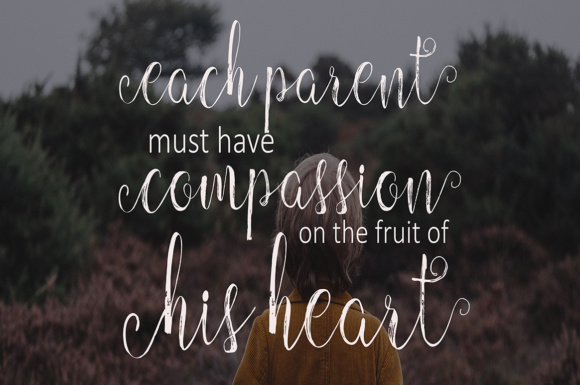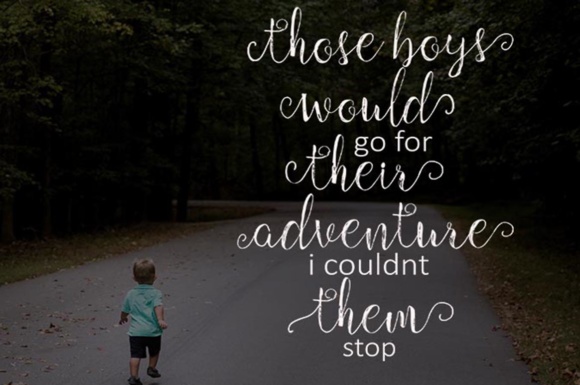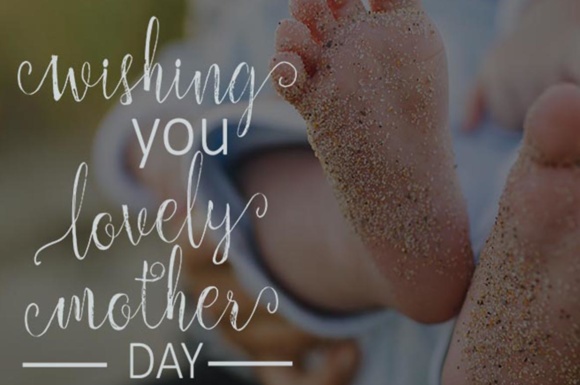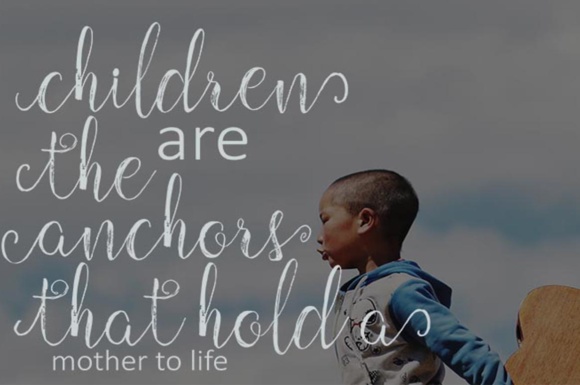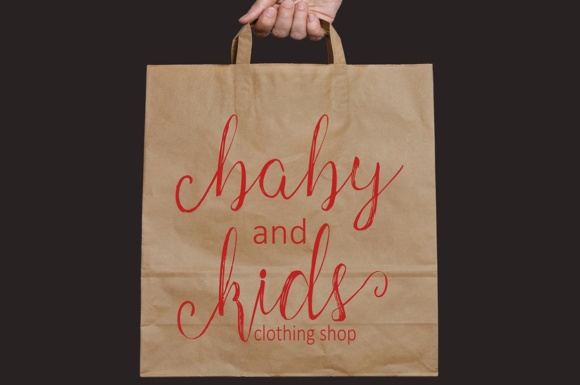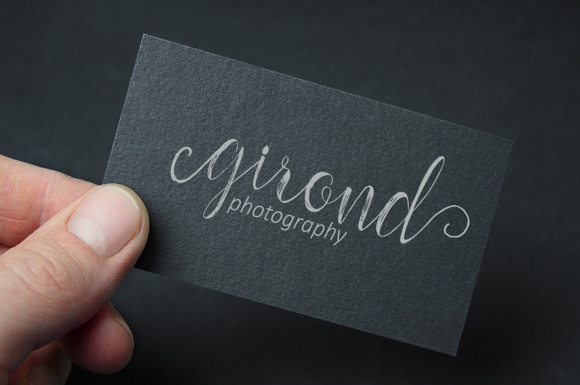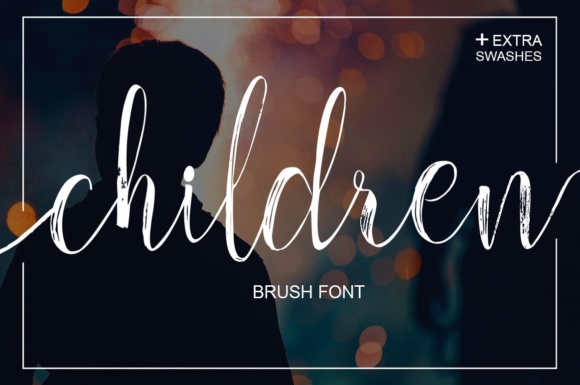
Introducing Children Font: A Delicate Hand-Brushed Typeface for Rustic Charm
In the world of typography, fonts play a crucial role in setting the tone and aesthetic of a project. For designers and crafters looking to add a touch of rustic charm to their work, the Children Font is an excellent choice. This beautiful, hand-brushed typeface boasts a thin and delicate appearance, making it perfect for projects that require a feminine and understated style.
What is Children Font?
Children Font is a unique, hand-brushed typeface that exudes a sense of elegance and simplicity. Its delicate strokes and thin lines give it a charming, whimsical feel that’s ideal for a variety of design projects. Whether you’re working on a craft project, a branding campaign, or a website design, this font is sure to add a touch of sophistication and refinement.
Characteristics of Children Font
So, what makes Children Font so special? Here are some of its key characteristics:
- Hand-brushed appearance: Children Font has a distinctive, hand-brushed look that gives it a personal and organic feel.
- Thin and delicate: The font’s thin lines and delicate strokes make it perfect for projects that require a light, airy feel.
- Feminine appeal: Children Font has a distinctly feminine charm that’s ideal for projects targeting a female audience.
- Rustic charm: The font’s hand-brushed appearance gives it a rustic, homespun feel that’s perfect for craft projects and other designs that require a personal touch.
Uses for Children Font
Children Font is a versatile typeface that can be used in a variety of design projects, including:
- Craft projects: The font’s rustic charm and delicate appearance make it perfect for craft projects, such as handmade cards, invitations, and scrapbooking.
- Branding and packaging: Children Font’s feminine appeal and understated style make it an excellent choice for branding and packaging projects, particularly for products targeting a female audience.
- Website design: The font’s thin lines and delicate appearance make it perfect for website design, particularly for projects that require a light, airy feel.
- Stationery and invitations: Children Font’s elegant, refined appearance makes it an excellent choice for stationery and invitation design.
Tips for Using Children Font
To get the most out of Children Font, here are some tips to keep in mind:
- Use it sparingly: Children Font’s delicate appearance can be overwhelmed by too much text or bold design elements. Use it sparingly to create a sense of elegance and refinement.
- Pair it with bold fonts: Children Font’s thin lines and delicate appearance make it an excellent choice for pairing with bold, statement fonts.
- Experiment with colors: The font’s hand-brushed appearance gives it a organic, earthy feel that’s perfect for earthy color palettes.
Children Font is a beautiful, hand-brushed typeface that’s perfect for designers and crafters looking to add a touch of rustic charm to their projects. Its delicate appearance, feminine appeal, and understated style make it an excellent choice for a variety of design projects, from craft projects and branding to website design and stationery. With its versatility and elegance, Children Font is sure to become a favorite in your design toolkit.